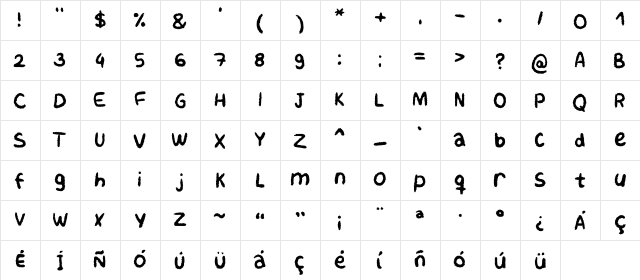
Karbon Regular
Design Context for Karbon Typeface
Karbon is a composed and adaptable typeface that performs quietly and consistently across a wide range of design contexts.
Pro Tip: Use Karbon in both headline and body roles to test its range before committing to a single application.